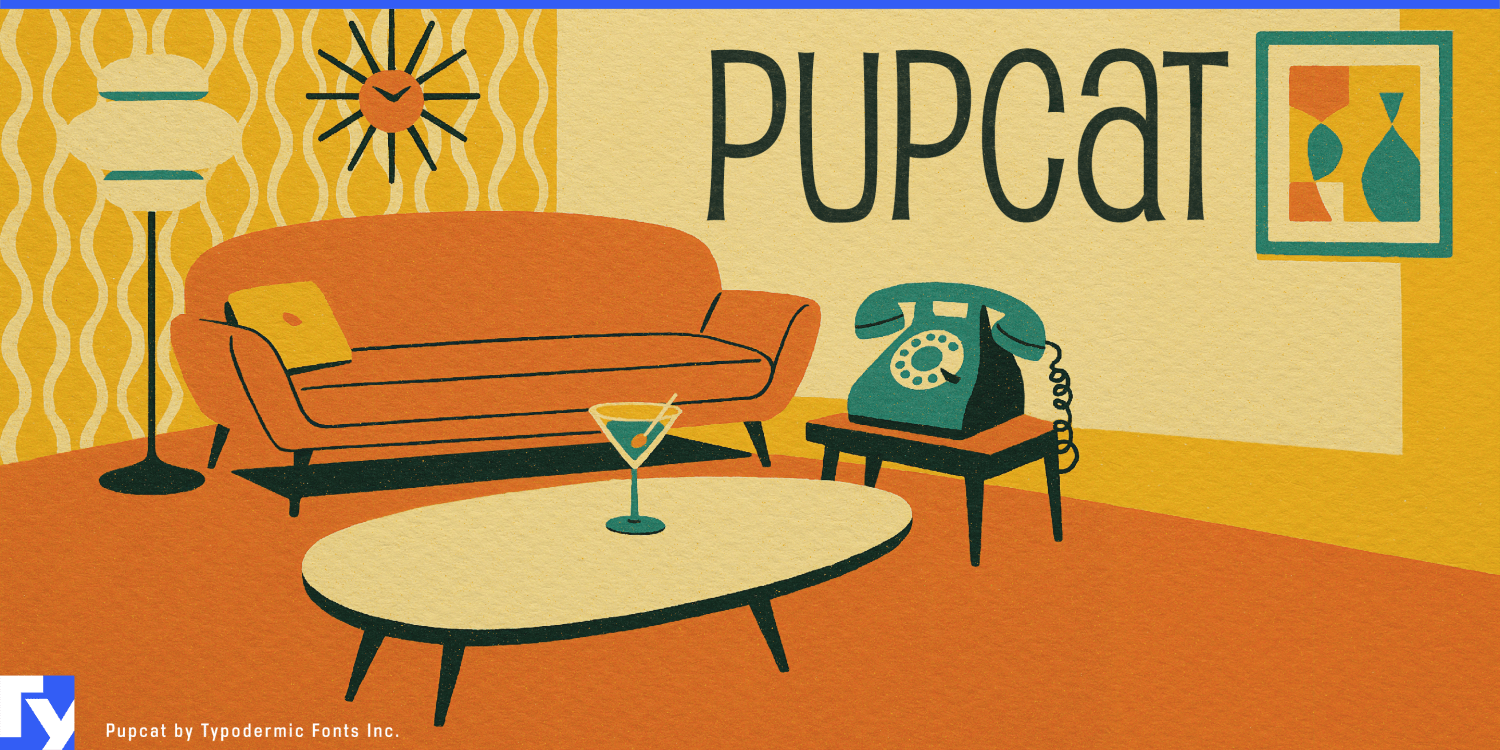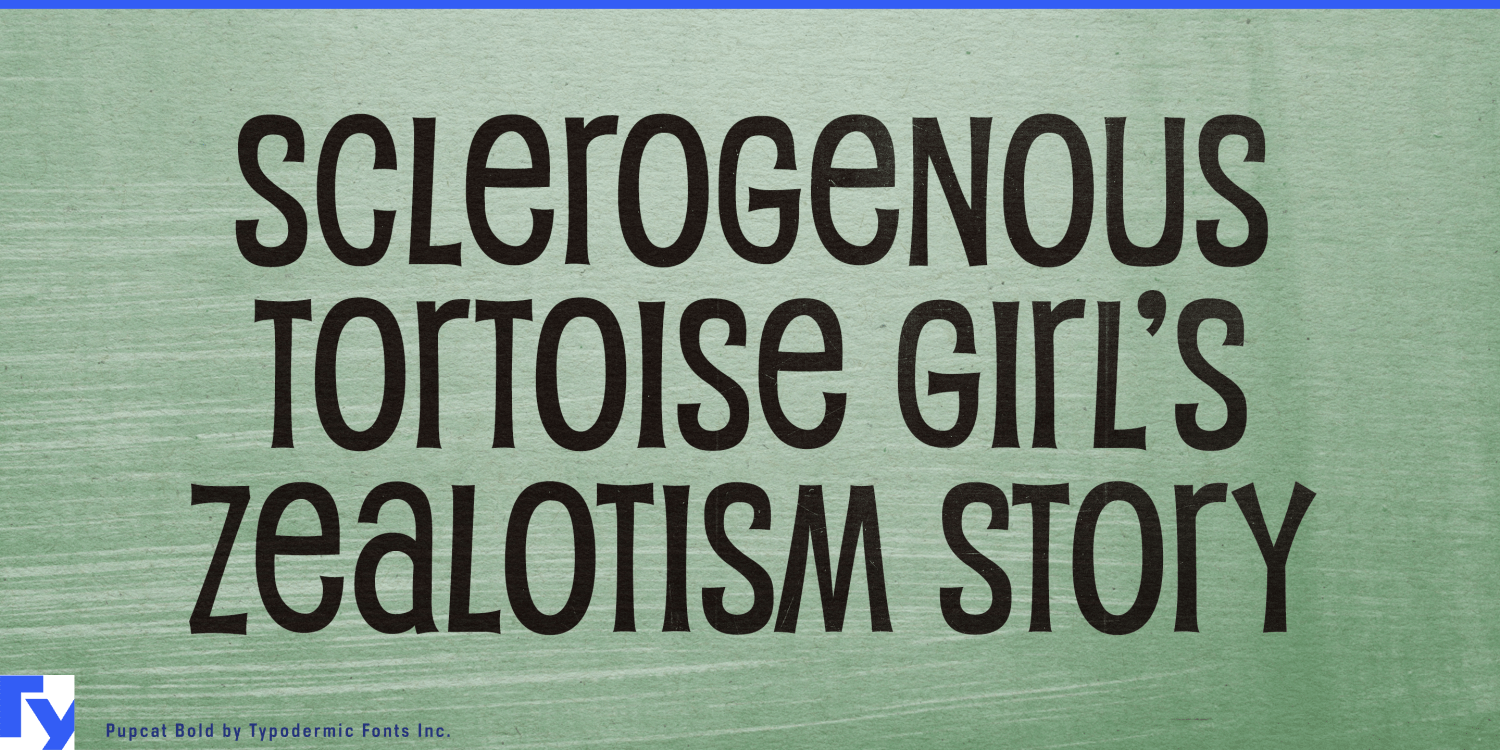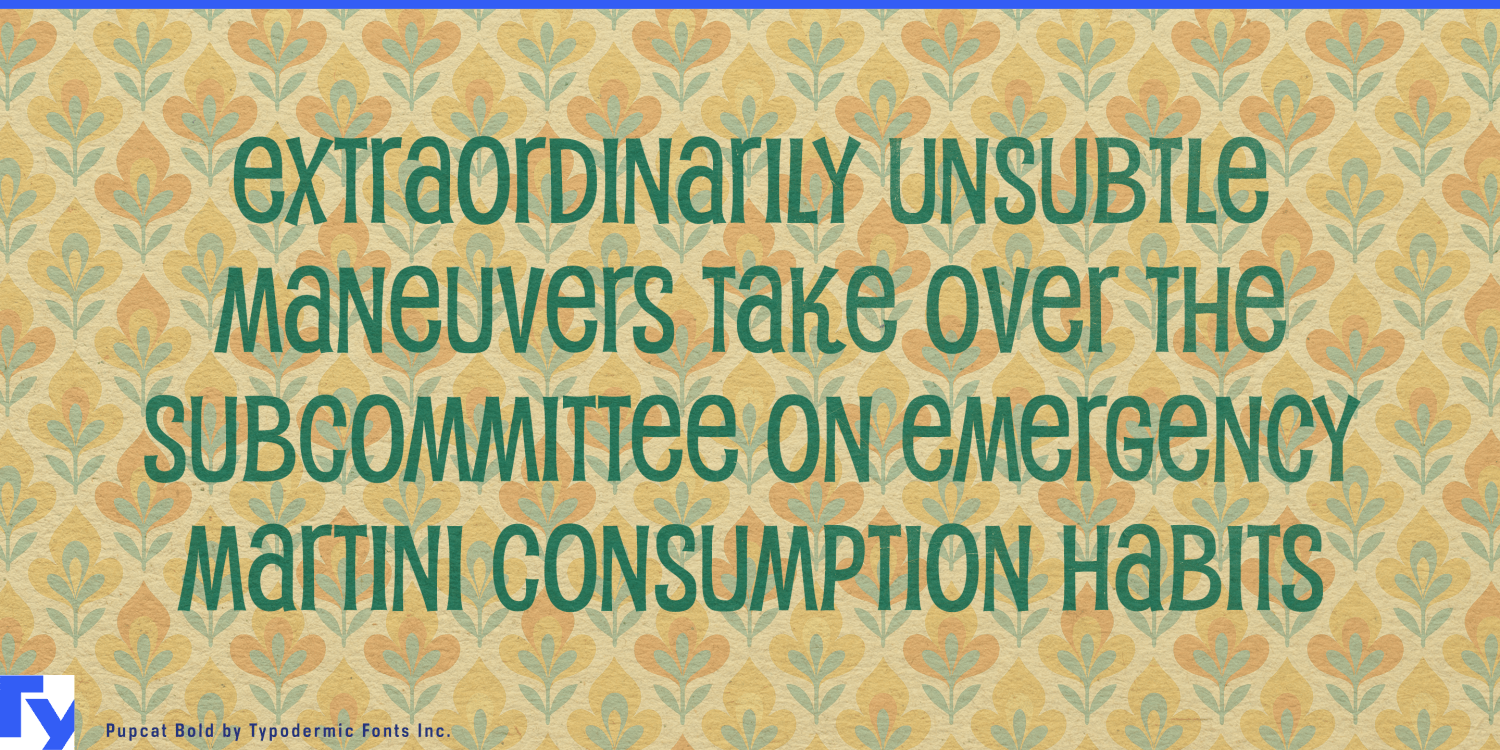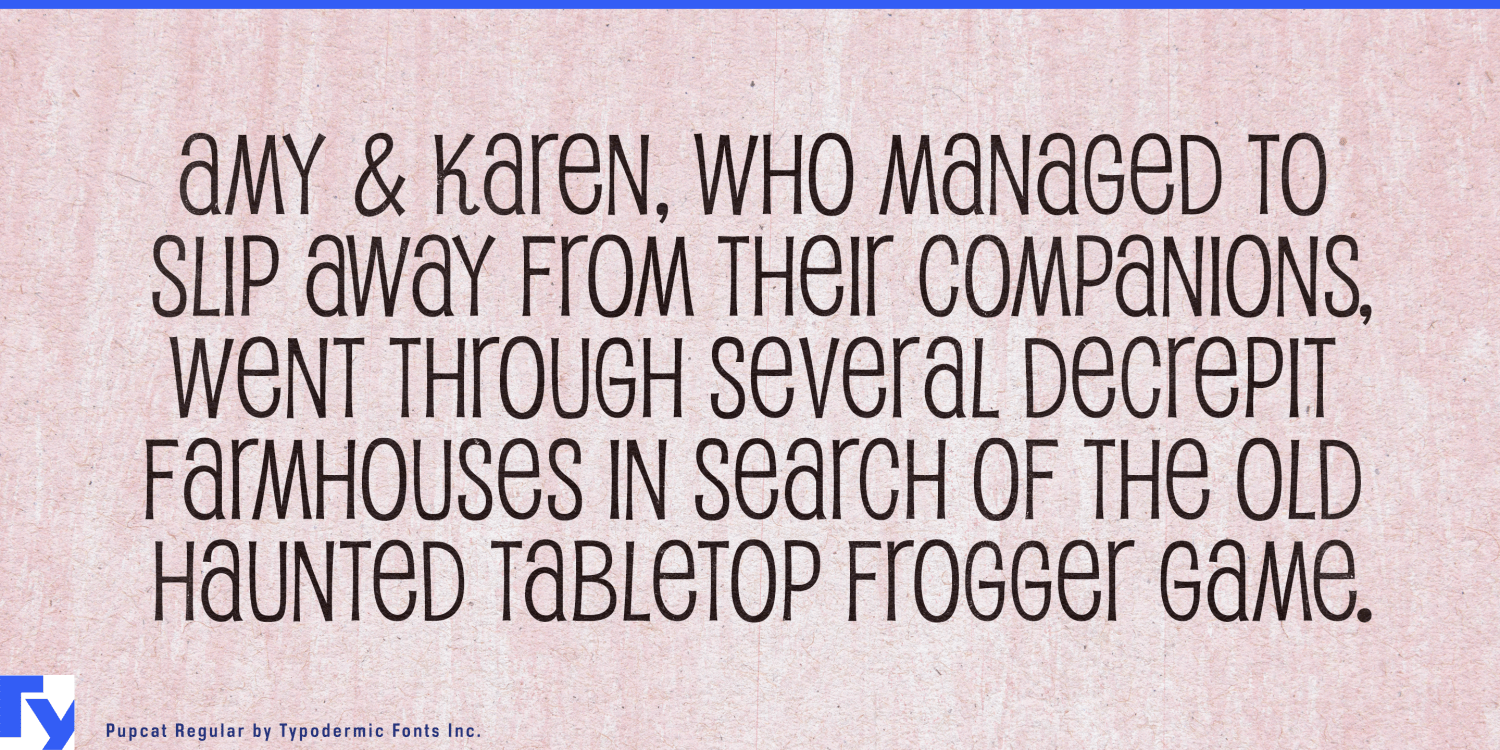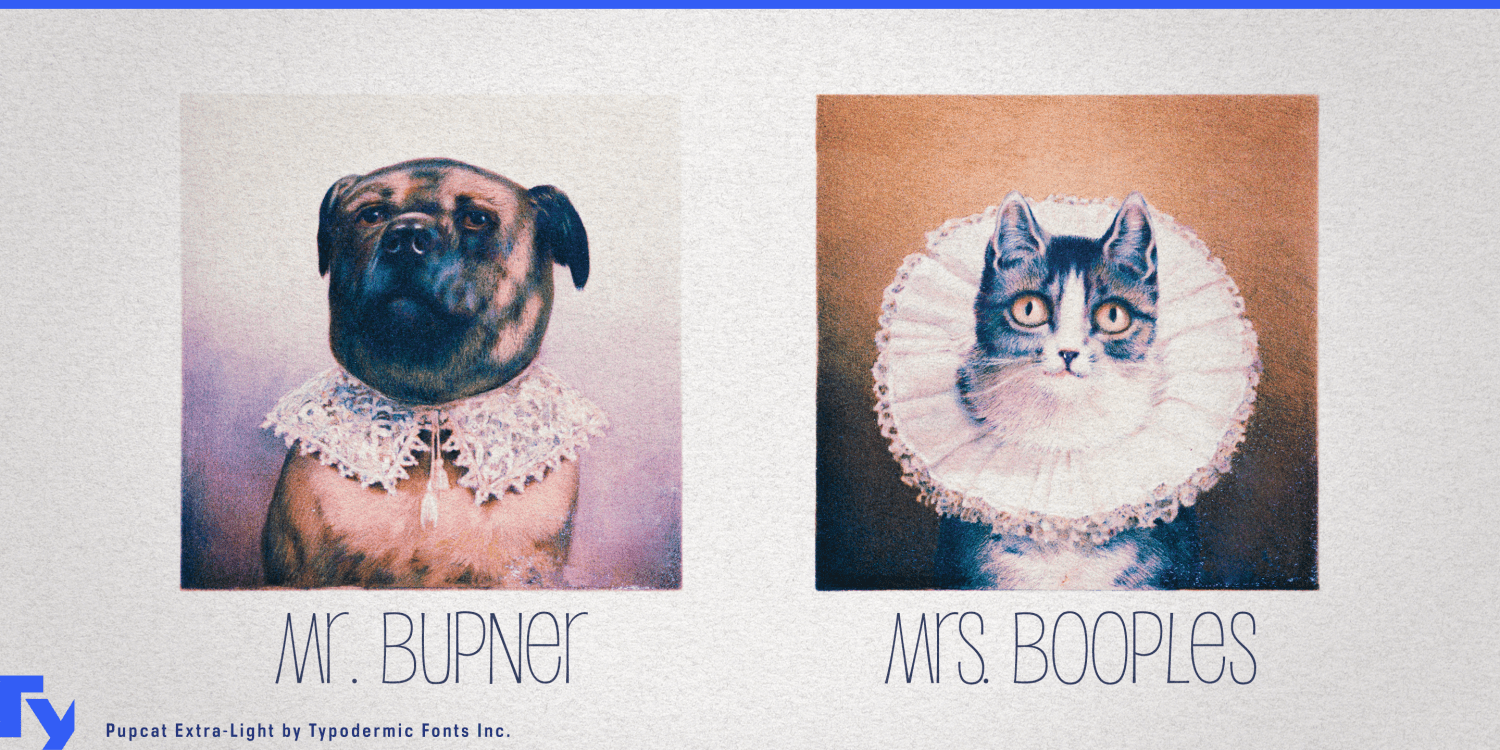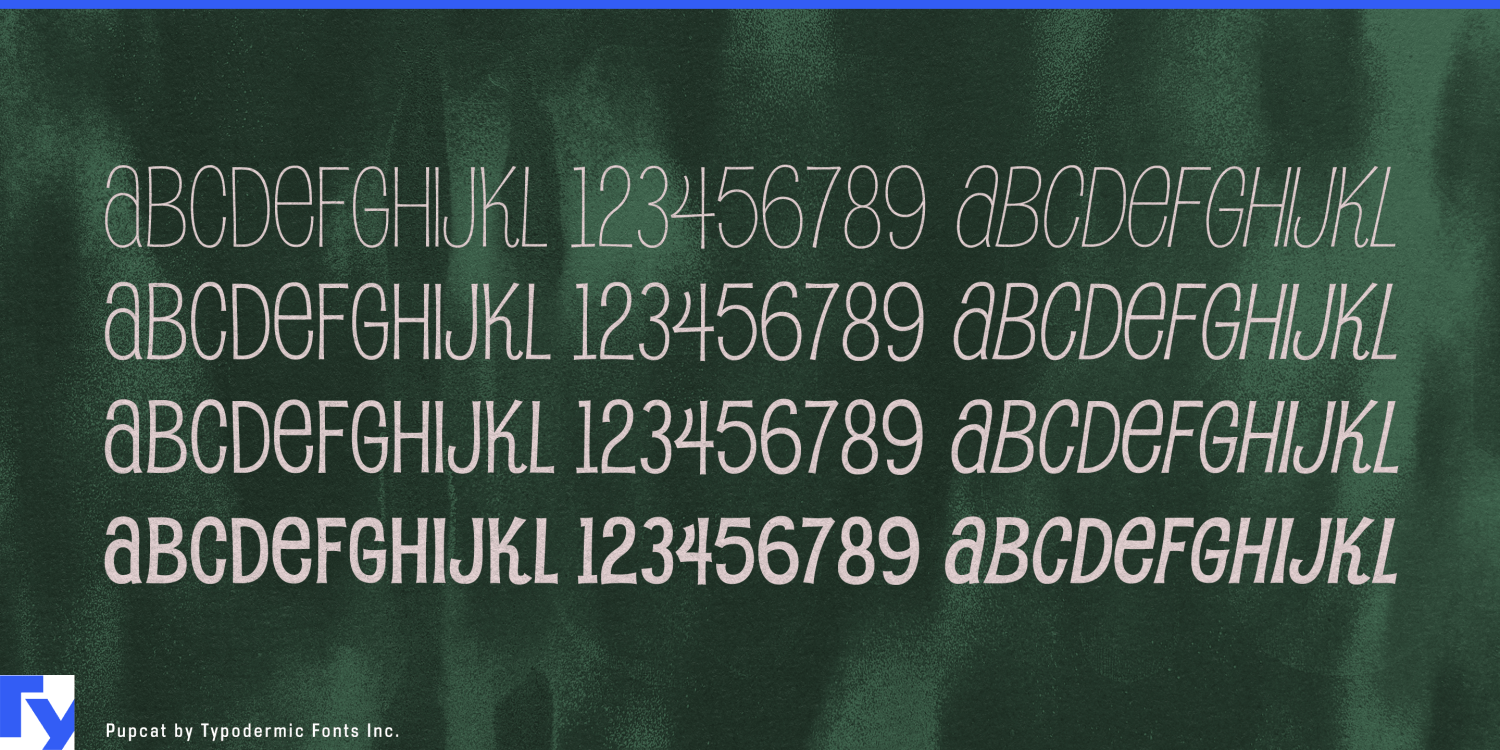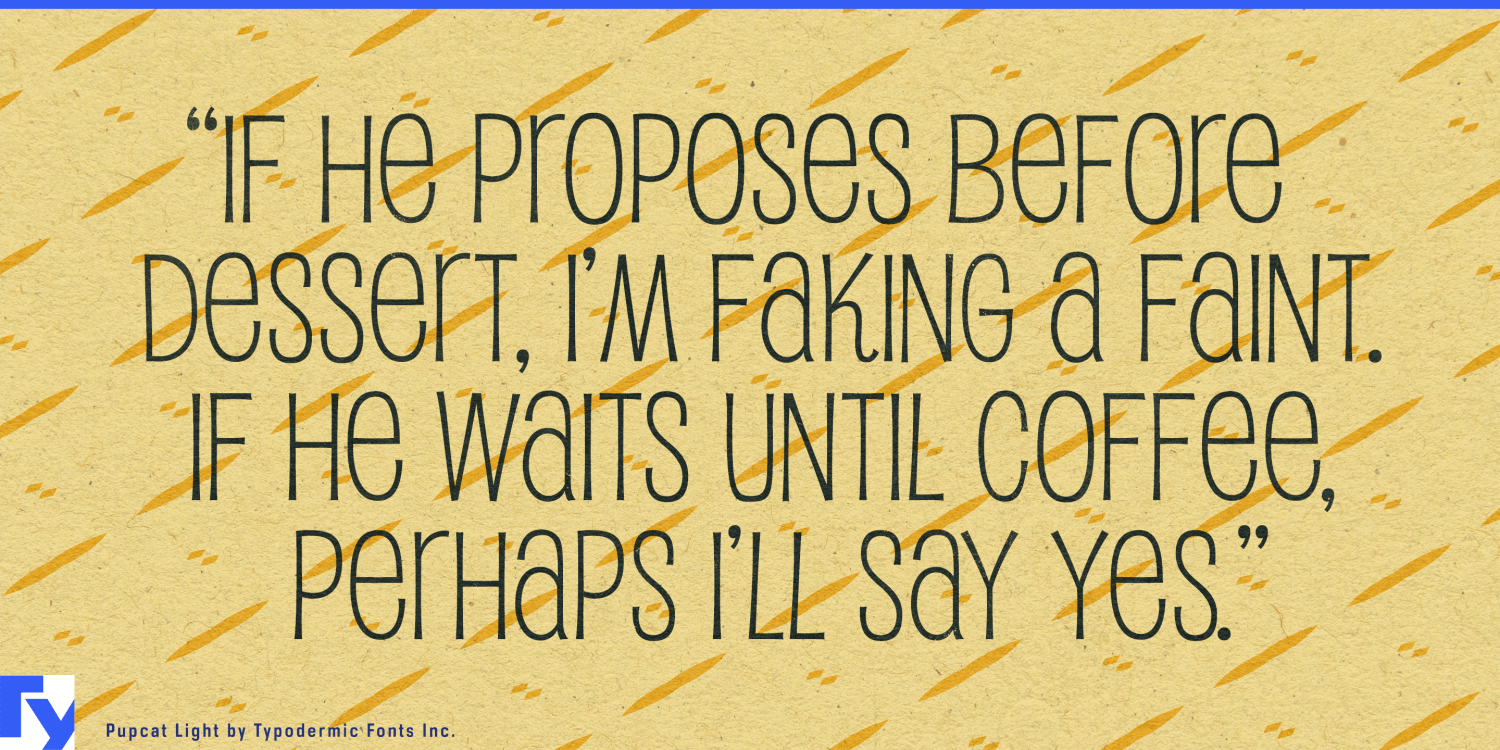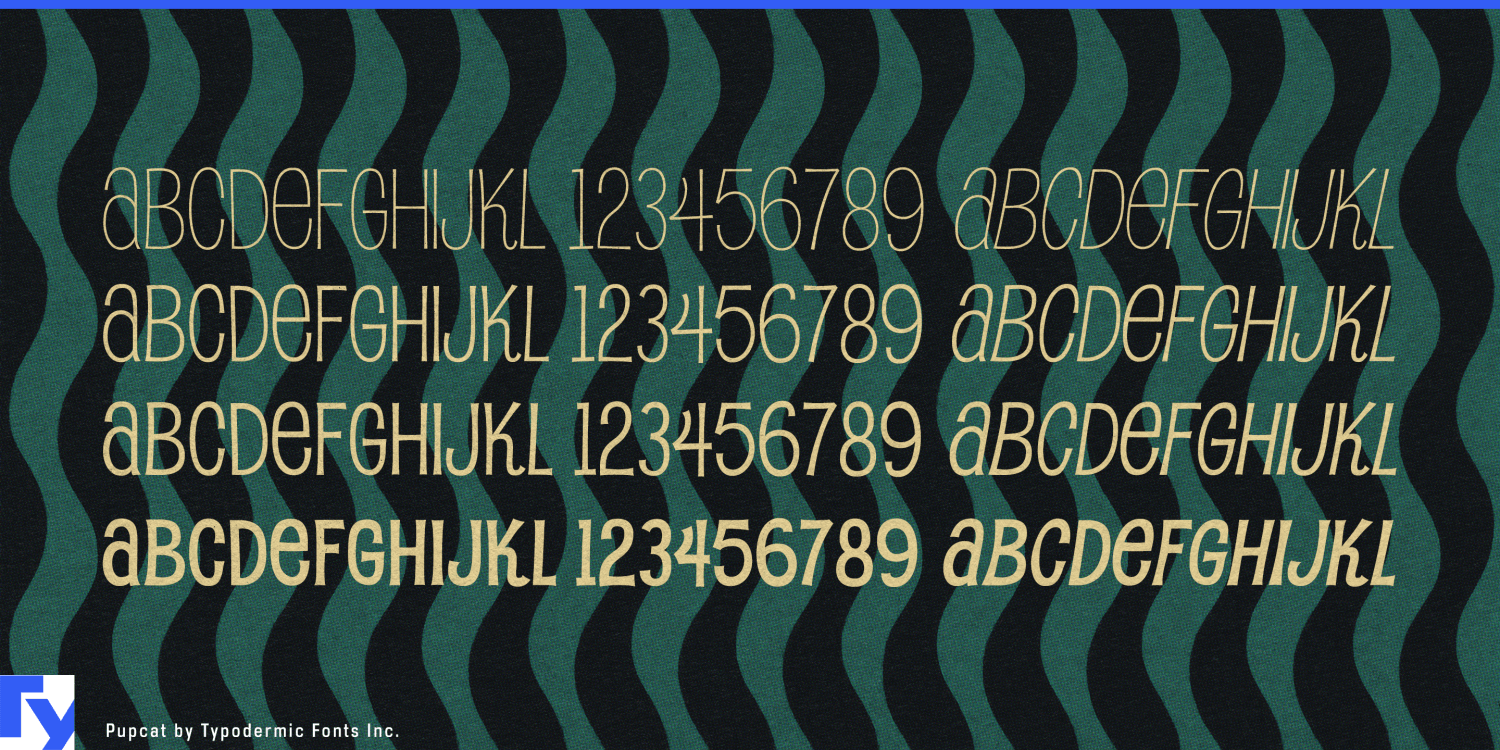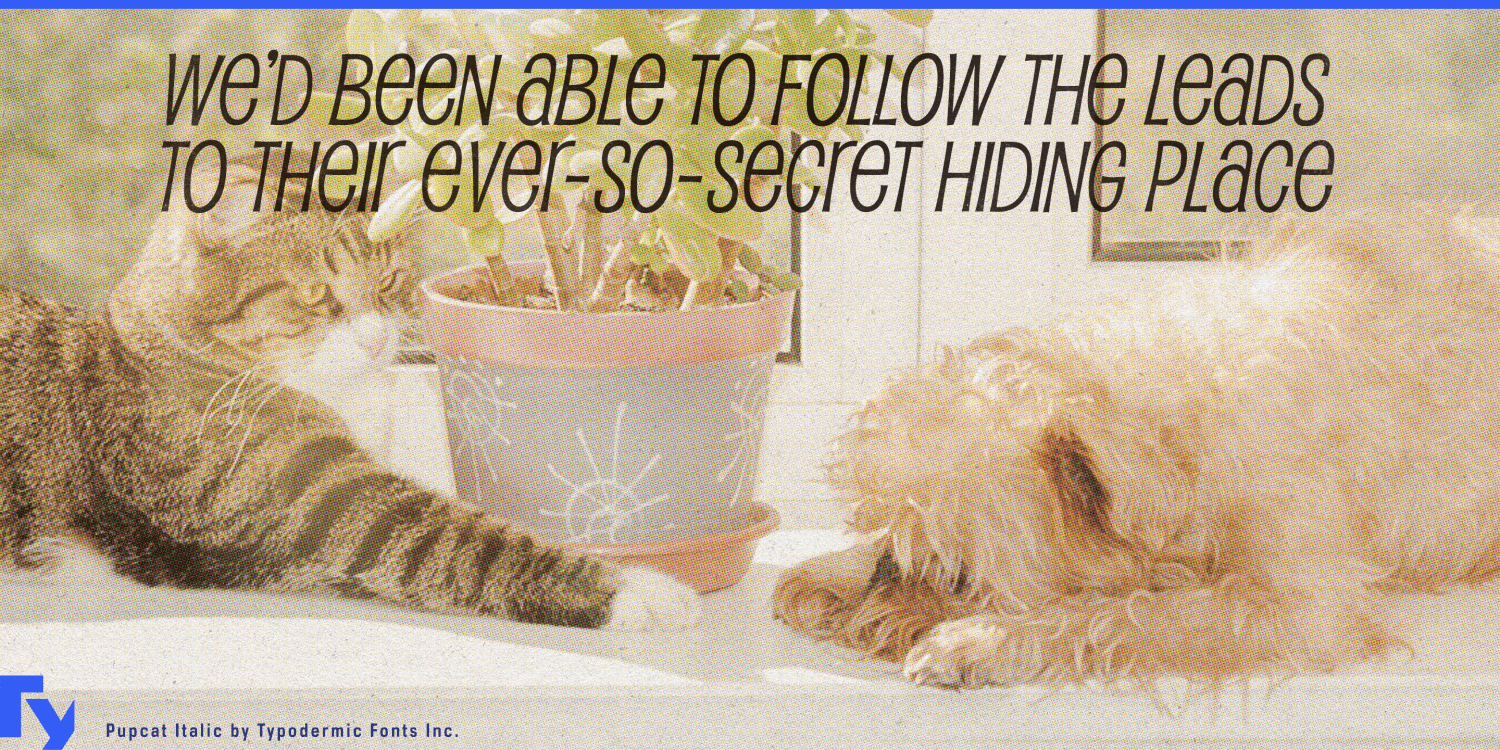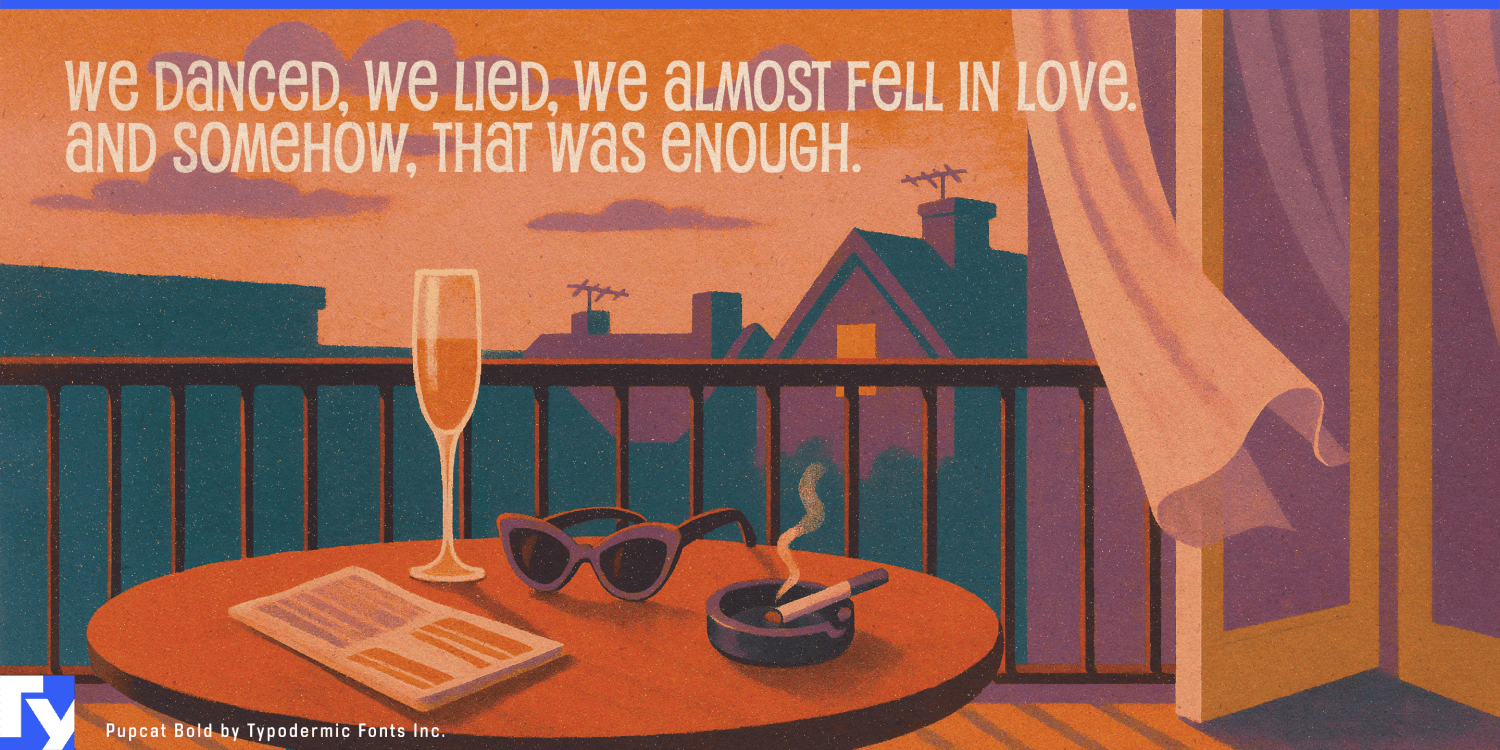
Pupcat
Buy NowPupcat is a narrow, hand-drawn display family with roots in mid-century movie-poster lettering. Its tall proportions and slightly eccentric forms can feel playful, stylish, or theatrical without becoming cartoonish, making it especially useful for designs that need a distinctive display voice across more than one piece of communication.
Patisseries and confectionery brands are a particularly good fit. Macaron boxes, petit-four assortments, canelé sleeves, bonbon collections, seasonal pastry sets, flavor cards, shopping bags, and counter signs can all use Pupcat without crowding small packages. Names such as Raspberry Rose, Almond Praline, or Salted Caramel benefit from its narrow proportions and decorative rhythm.
The same character suits repertory cinema and film-festival campaigns, where film titles, screening themes, actor names, quotations, posters, programs, venue graphics, and merchandise need to share a recognizable visual language. Boutique hotels, pool clubs, cocktail lounges, and restored mid-century resorts offer another natural setting for menus, event graphics, postcards, room promotions, and poolside signage.
Pupcat also works well across highly art-directed product ranges such as cocktail mixers, confectionery, candles, cosmetics, and specialty gift collections. Its strength lies in carrying a recognizable display identity through packaging, campaigns, hospitality, and entertainment without demanding much horizontal space.